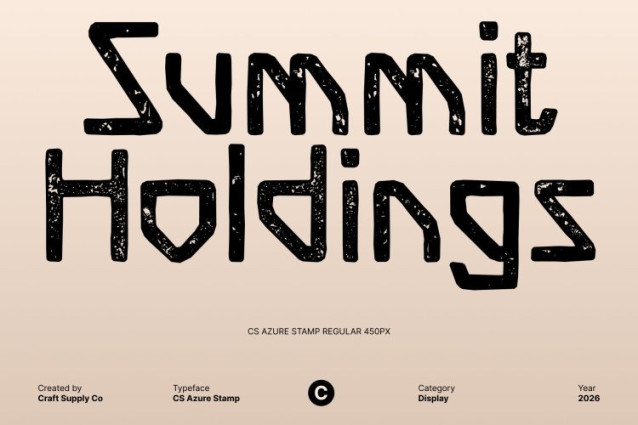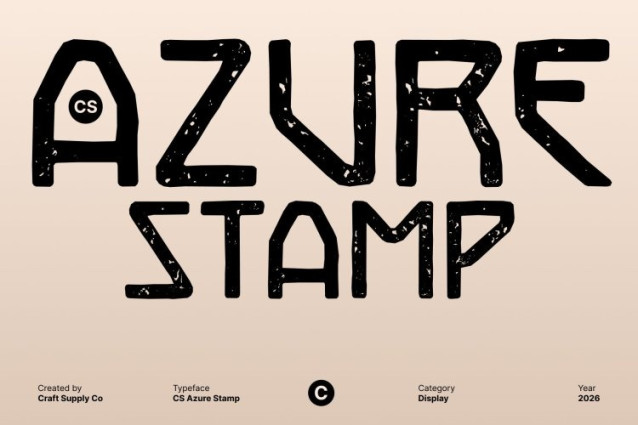
CS Azure Stamp Font
CS Azure Stamp Font This is a modern display font built on sharp geometry and clean, forward-looking structure. Its angular letterforms and precise construction reflect the visual language of advanced technology, innovation, and futuristic systems. The design feels confident, efficient, and engineered for tomorrow’s aesthetics.
Sharp Lines with a Dynamic, High-Tech Presence
Defined by crisp edges and geometric clarity, delivers a bold and dynamic appearance. The sharp lines create a strong sense of motion and progress, making the font feel fast, modern, and technologically driven. It’s perfectly suited for designs that want to communicate innovation, speed, and digital intelligence.
Stamped Texture for Industrial Depth and Character
The stamped effect introduces a subtle roughness and uneven texture that adds character and contrast to the sleek futuristic form. This texture gives the font an industrial, slightly worn feel creating a unique blend of modern technology and raw, tactile authenticity. The result is a futuristic font that feels more human, grounded, and visually engaging.
Perfect for Sci-Fi, Tech Branding, and Bold Displays
This is ideal for sci-fi visuals, tech branding, gaming titles, digital posters, and experimental creative projects. Its strong structure ensures high impact in headlines and logos, while the stamped texture adds depth that makes designs feel distinctive and memorable.